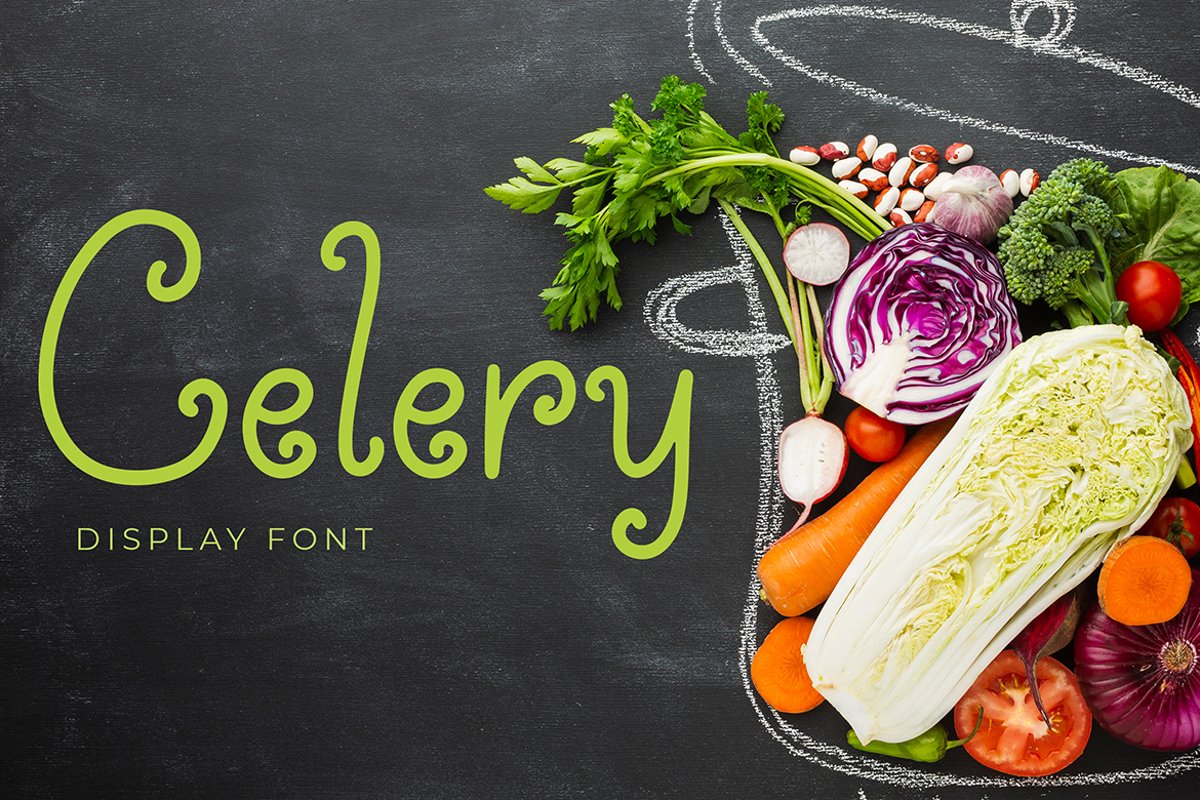
Celery Display Font
Celery
Celery is playful modern display font. This font perfect for branding projects, logo, book cover design, tshirt designs, social media posts, advertisements, product packaging, product designs, label, watermark, invitation, stationery and any projectsWhat's Included :